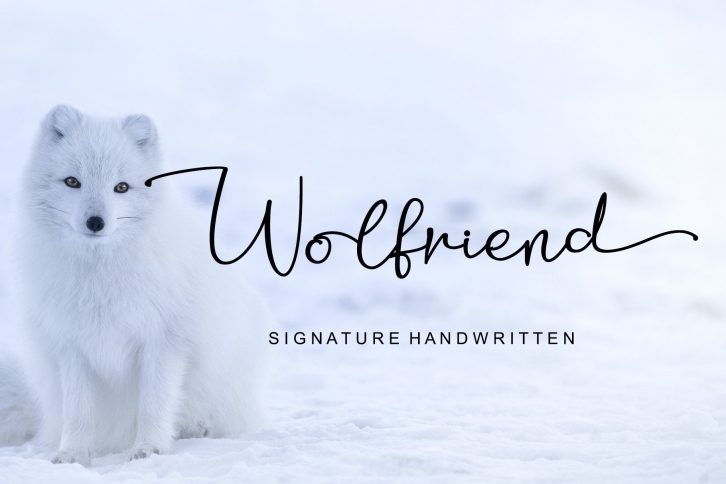
Wolfriend is a trendy and unique font with an authentic style. It was designed by Letterafa Studio and it's a great choice for creative people who need such a font. It was released on December 29, 2020 and the file size is 3.10 MB. Wolfriend will add an organic vibe to any design idea!